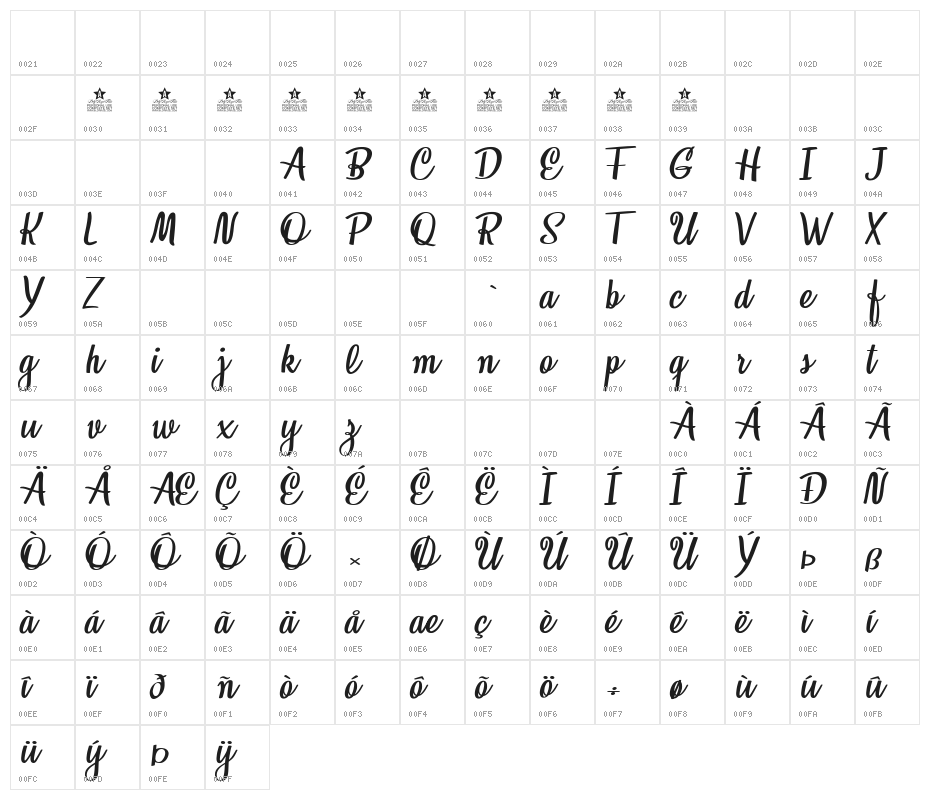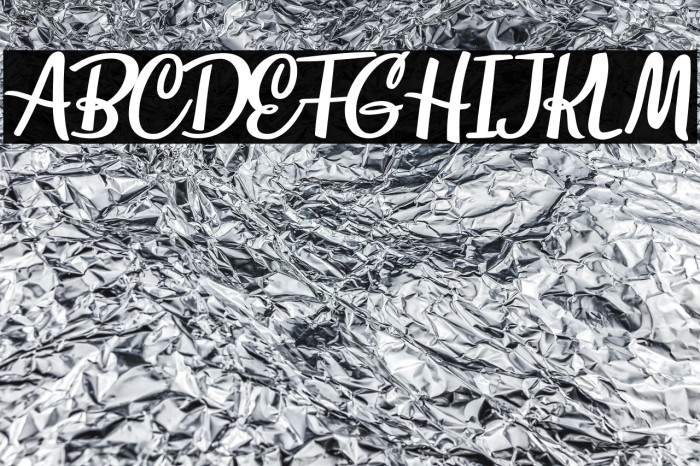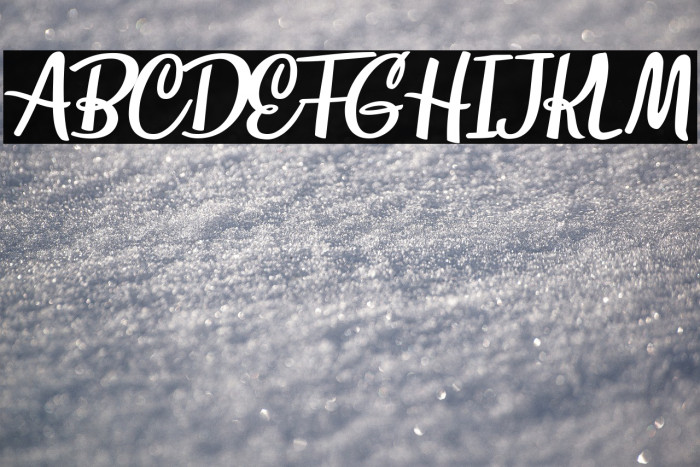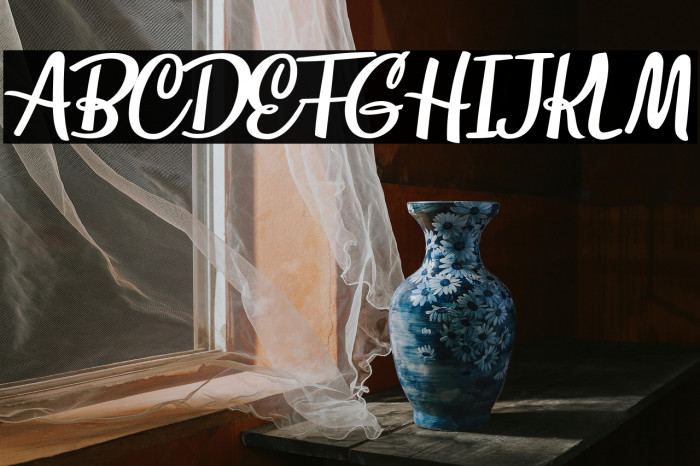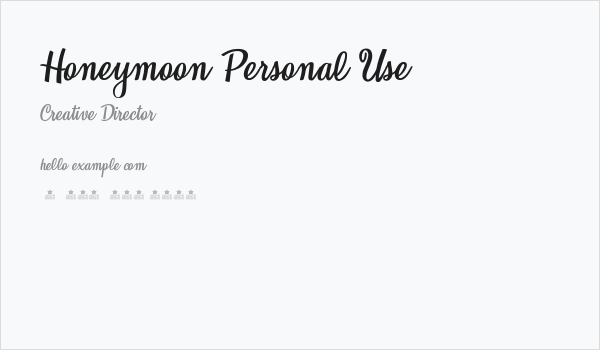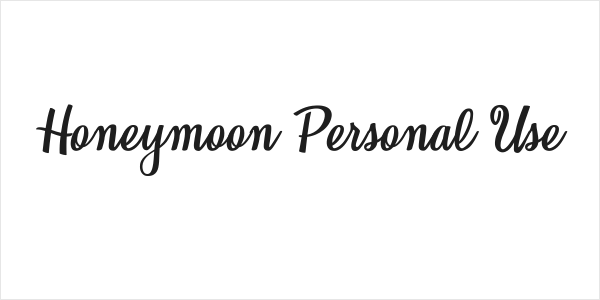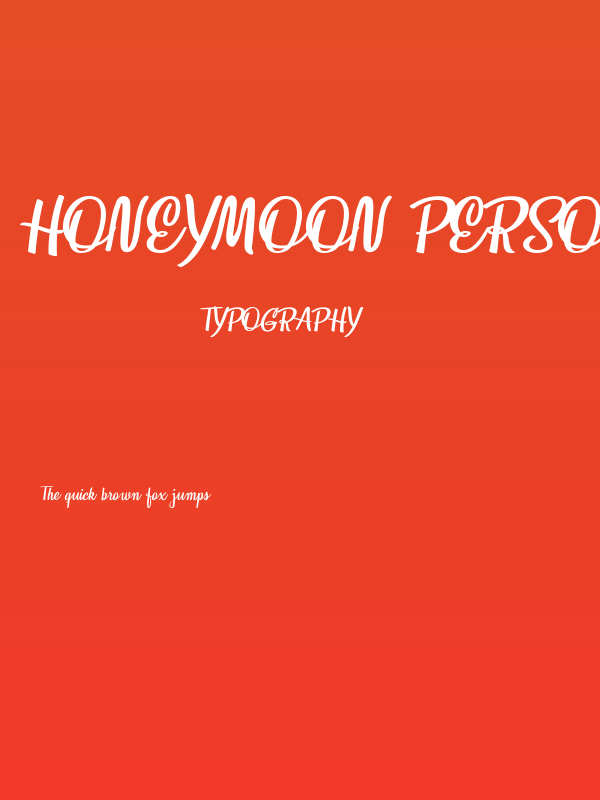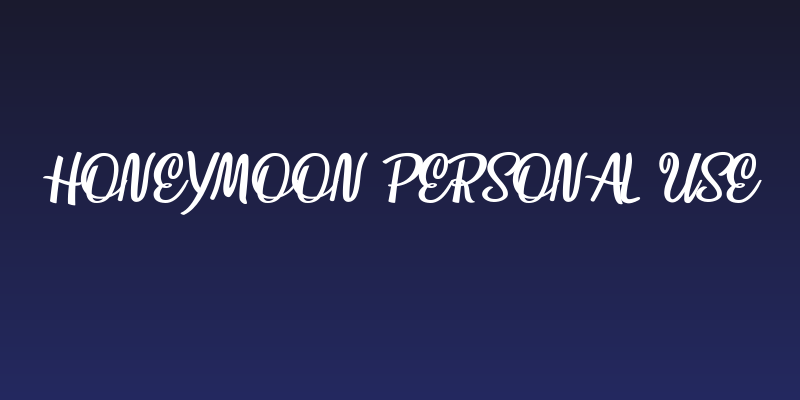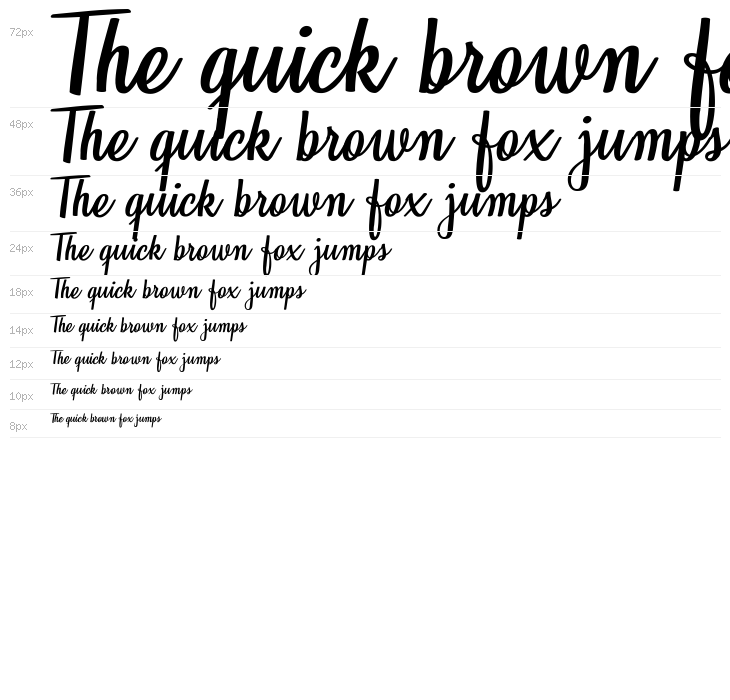
Honeymoon Personal Use Font
Honeymoon Personal Use Description
This font features a flowing, cursive style with elegant, sweeping strokes that give it a handwritten appearance. The uppercase letters are bold and slightly slanted, adding a dynamic feel, while the lowercase letters maintain a consistent flow with connected strokes. The overall design is both stylish and legible, making it suitable for a variety of creative applications. The characters are well-spaced, ensuring readability, and the script style adds a touch of sophistication and charm.
| Overall Style | Elegant, Handwritten |
| Use Case | Headlines, Invitations, Branding |
| Proposed Projects | Ideal for wedding invitations, greeting cards, branding, and personal projects where a touch of elegance is desired. |